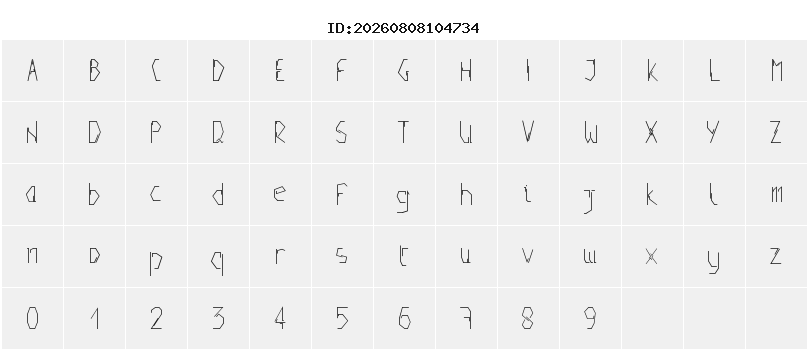
• Font Name: Positive
• Manufacturer: Vulta
Positive.ttf is a modern, elegant sans-serif font designed for ultimate readability and visual harmony. Perfect for branding, headlines, web design, and print materials.